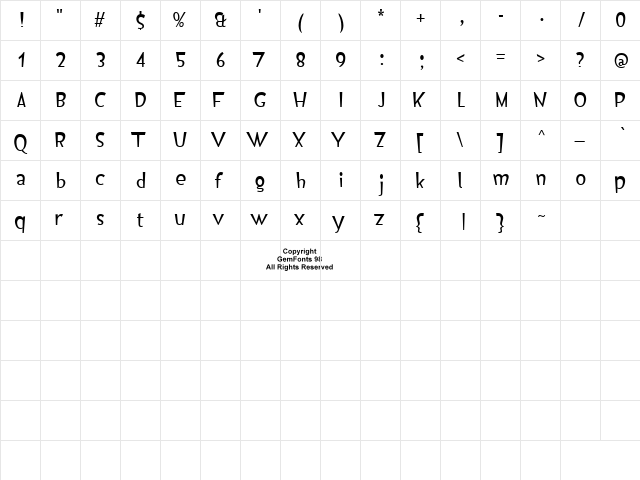
Isildur High Regular
Design Context for Isildur High Typeface
Isildur High takes a measured approach to typography — its balanced proportions and neutral character make it a reliable workhorse for both digital and print work.